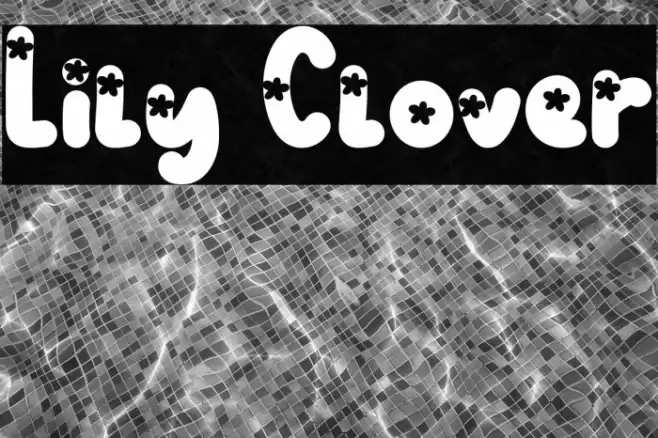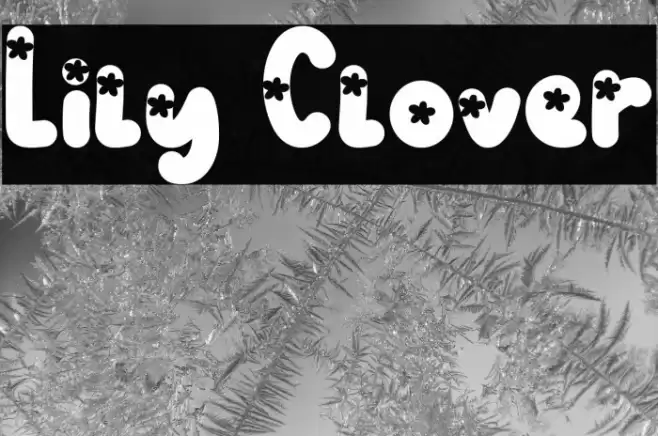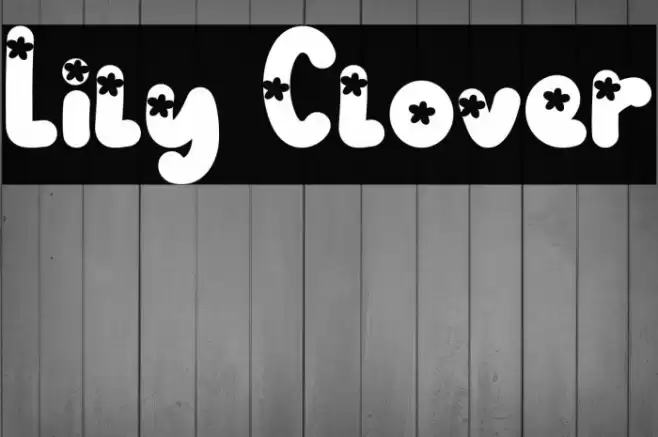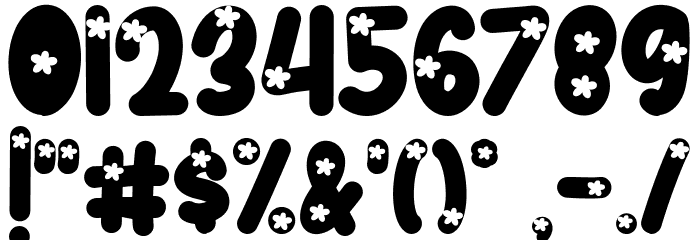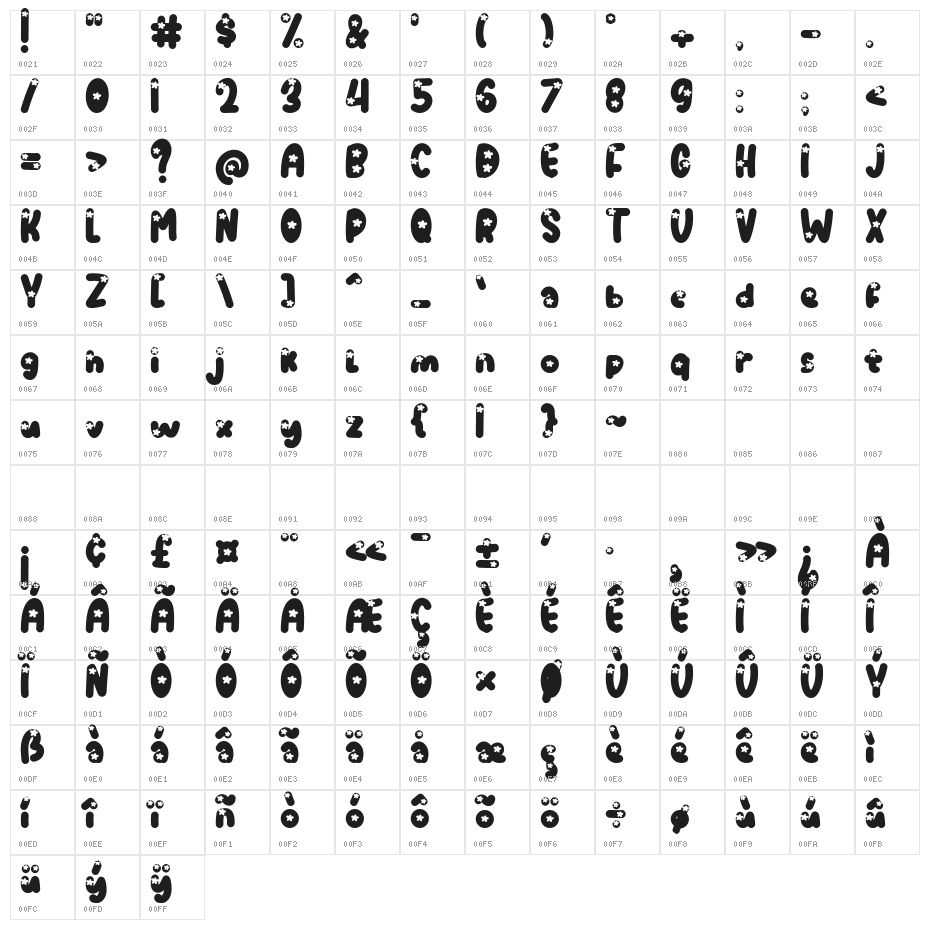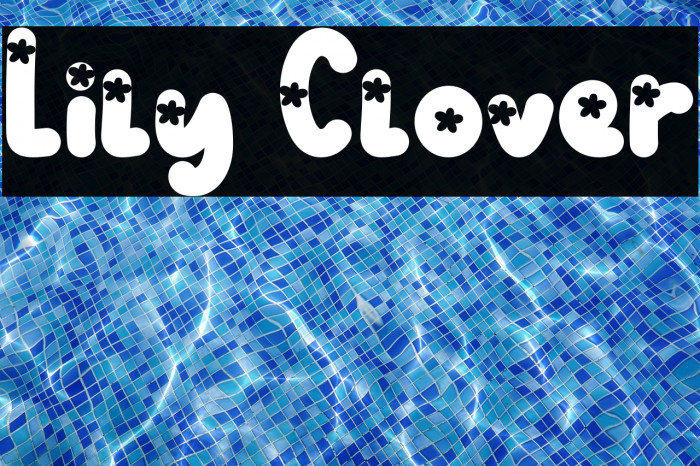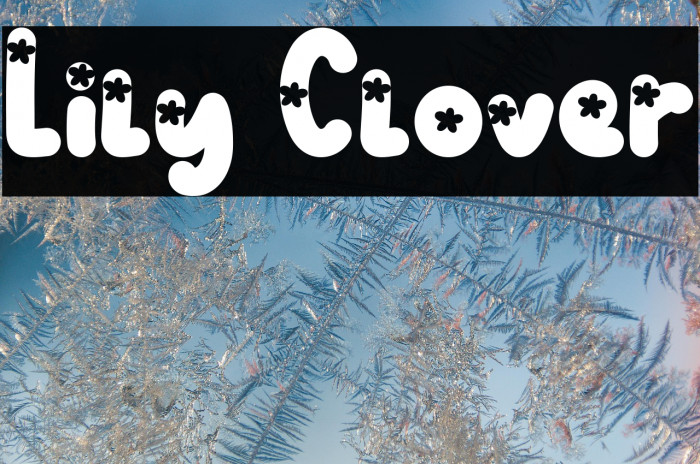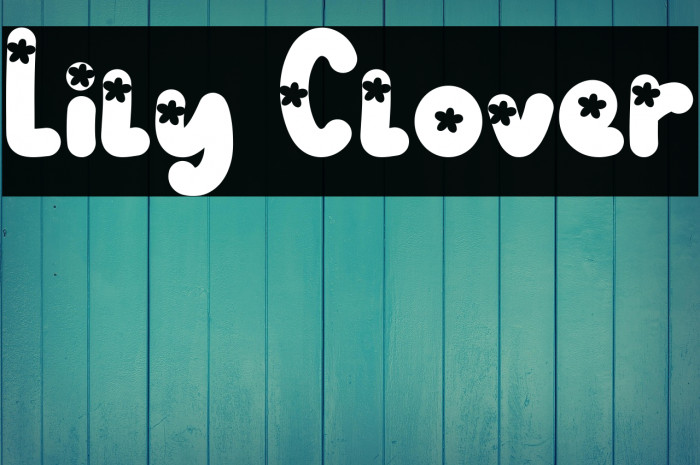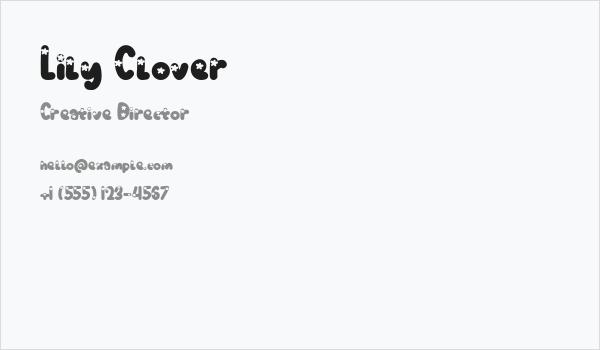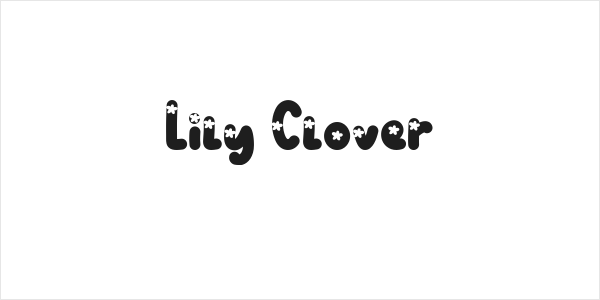
Lily Clover Font
Lily Clover Description
This playful and decorative font features bold, rounded characters adorned with charming flower motifs. The letters are thick and bubbly, creating a whimsical and friendly appearance. Each character is uniquely styled with floral elements, adding a touch of nature-inspired design. The font maintains a consistent weight throughout, ensuring readability while offering a fun and engaging aesthetic. Its distinctive style makes it ideal for projects that require a lively and cheerful vibe. The numbers and special characters are equally adorned with floral accents, maintaining the cohesive theme across all elements.
A playful, flower-adorned decorative font with bold, rounded characters from Valentine's Day fonts.
- Proposed Projects: Ideal for children's books, greeting cards, playful branding, and event invitations.
- Overall Style: Decorative